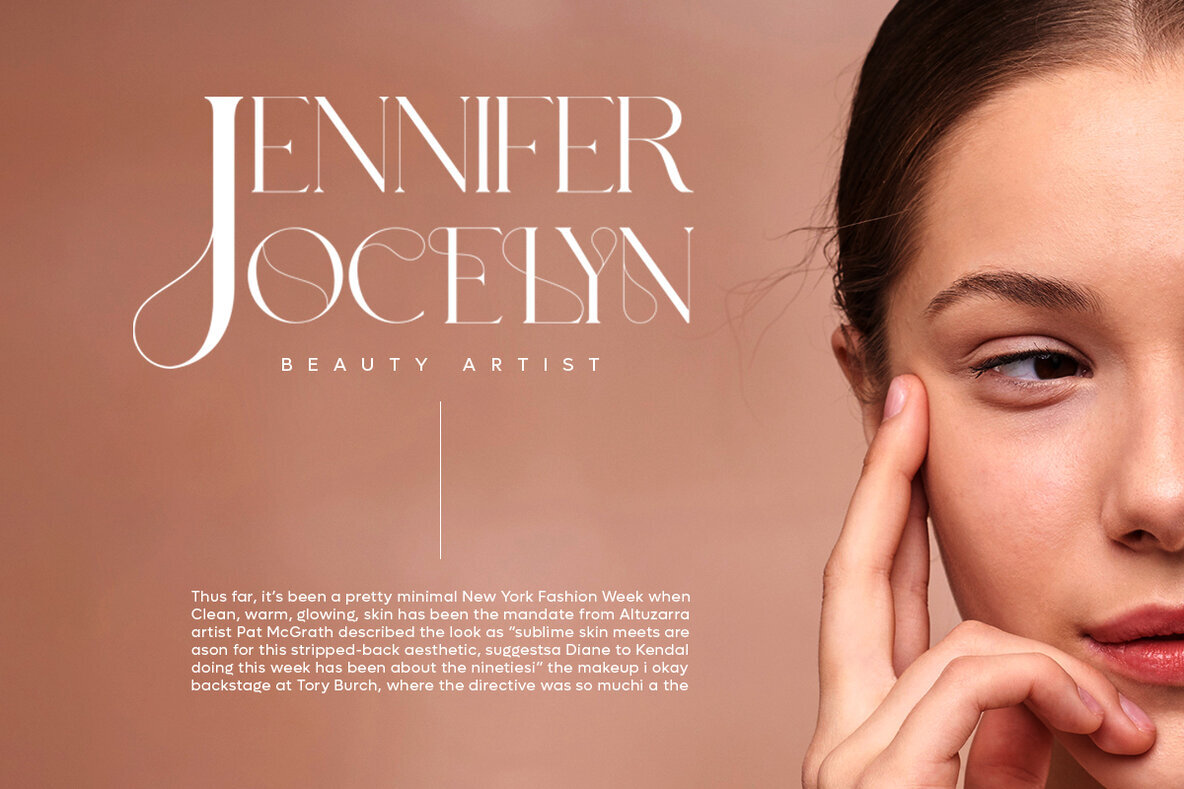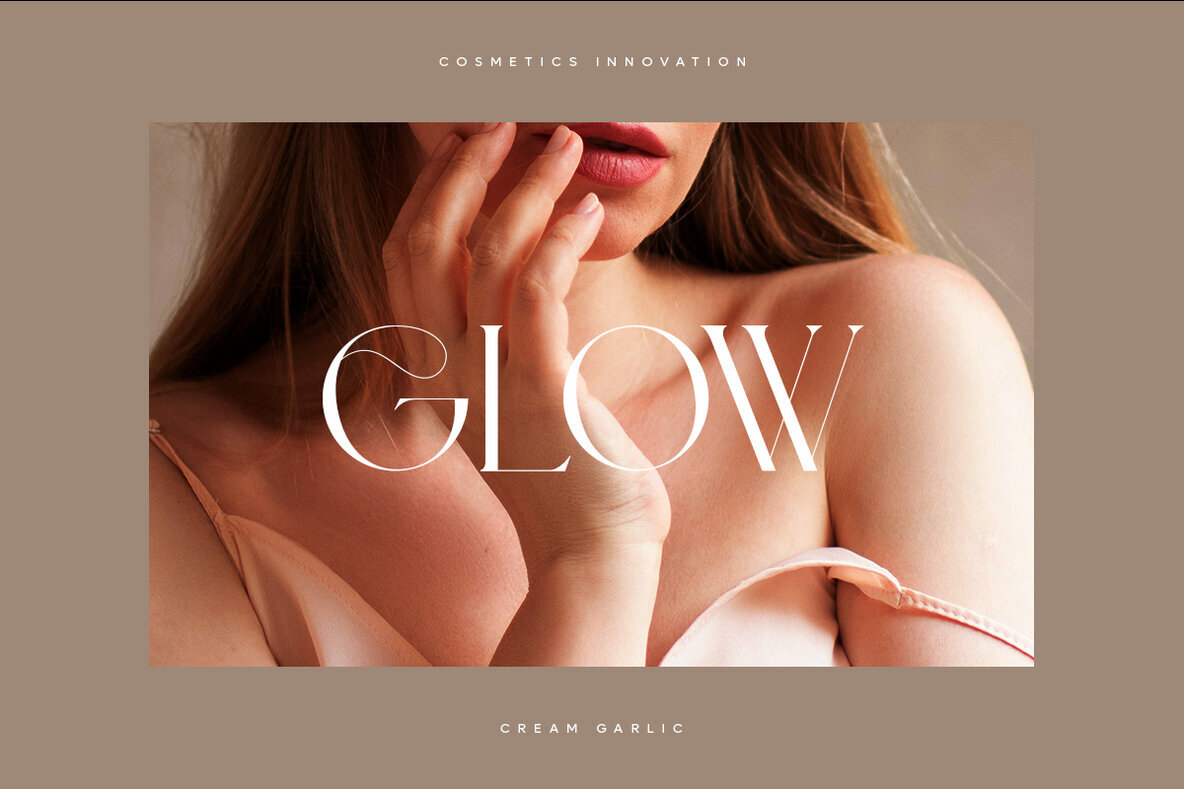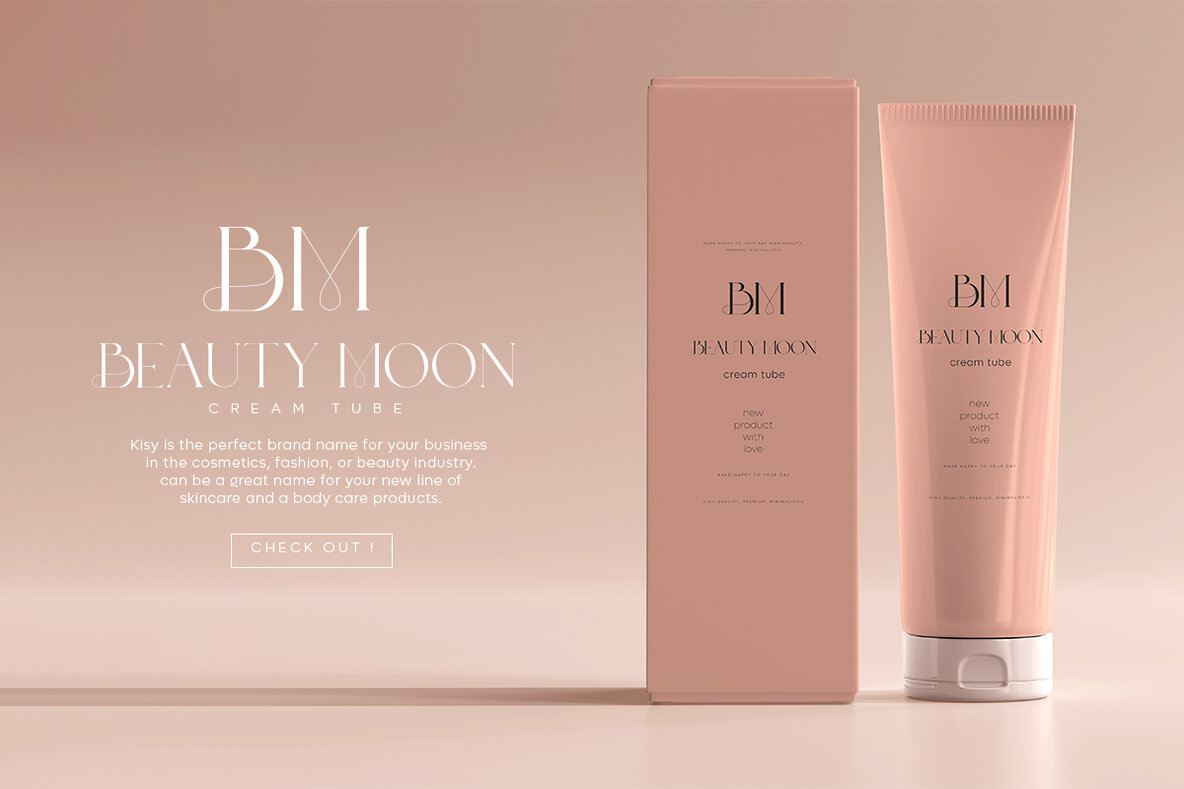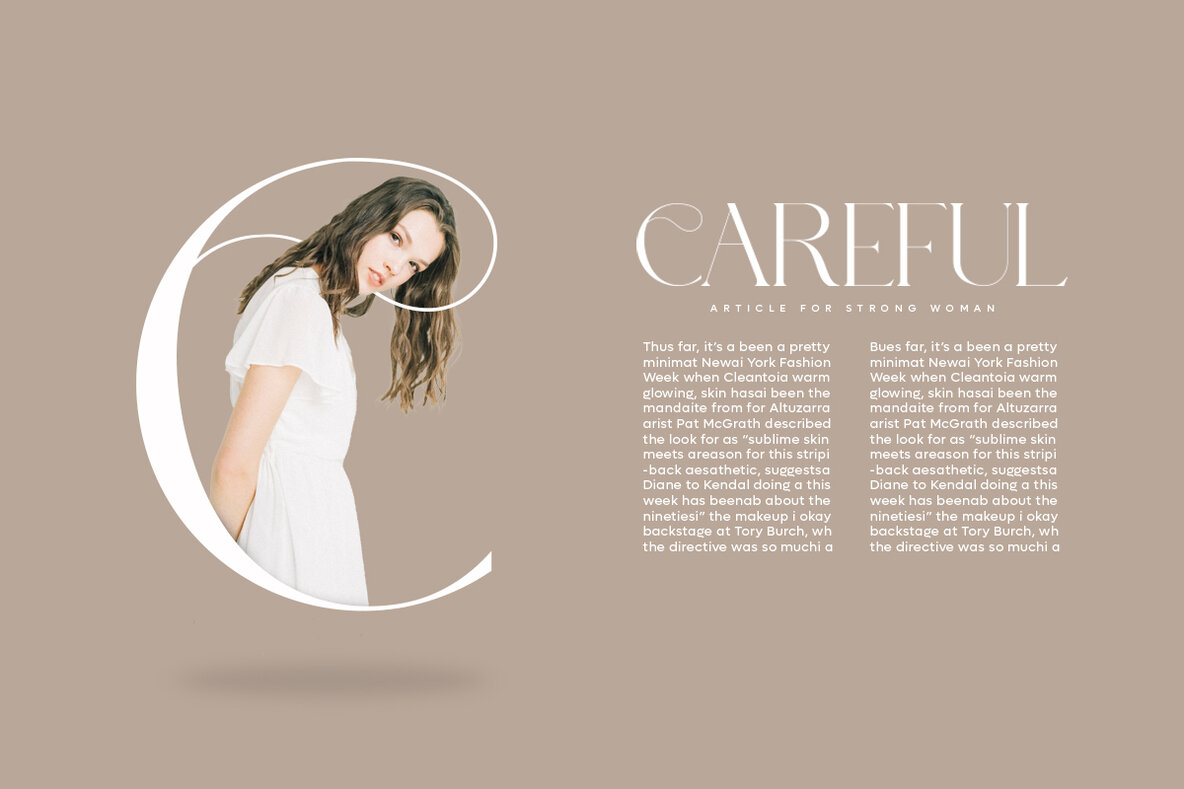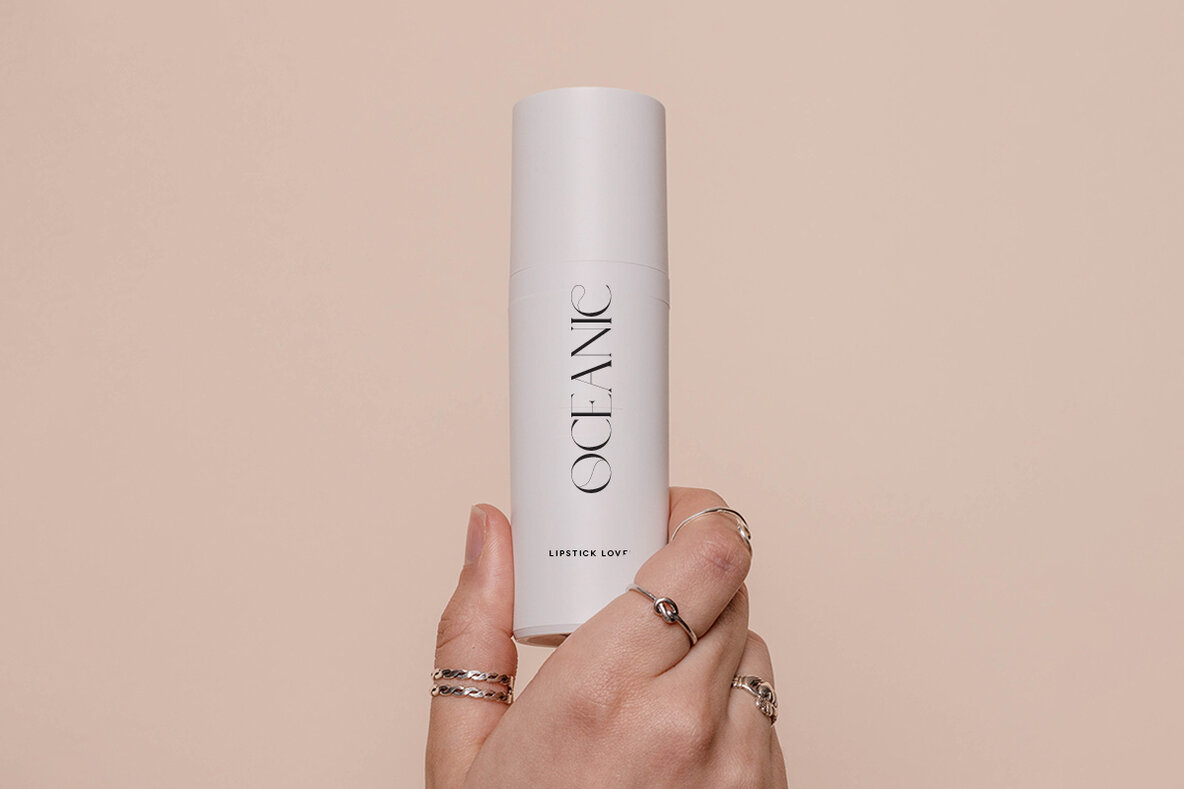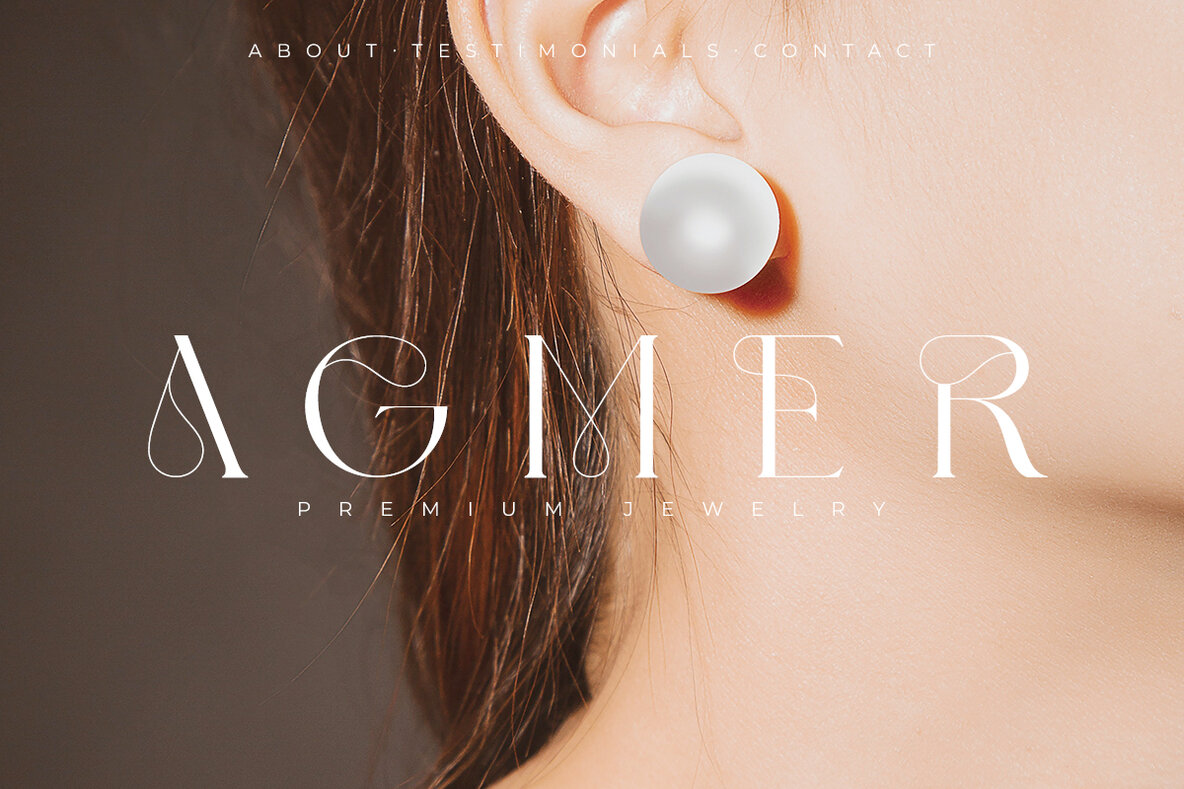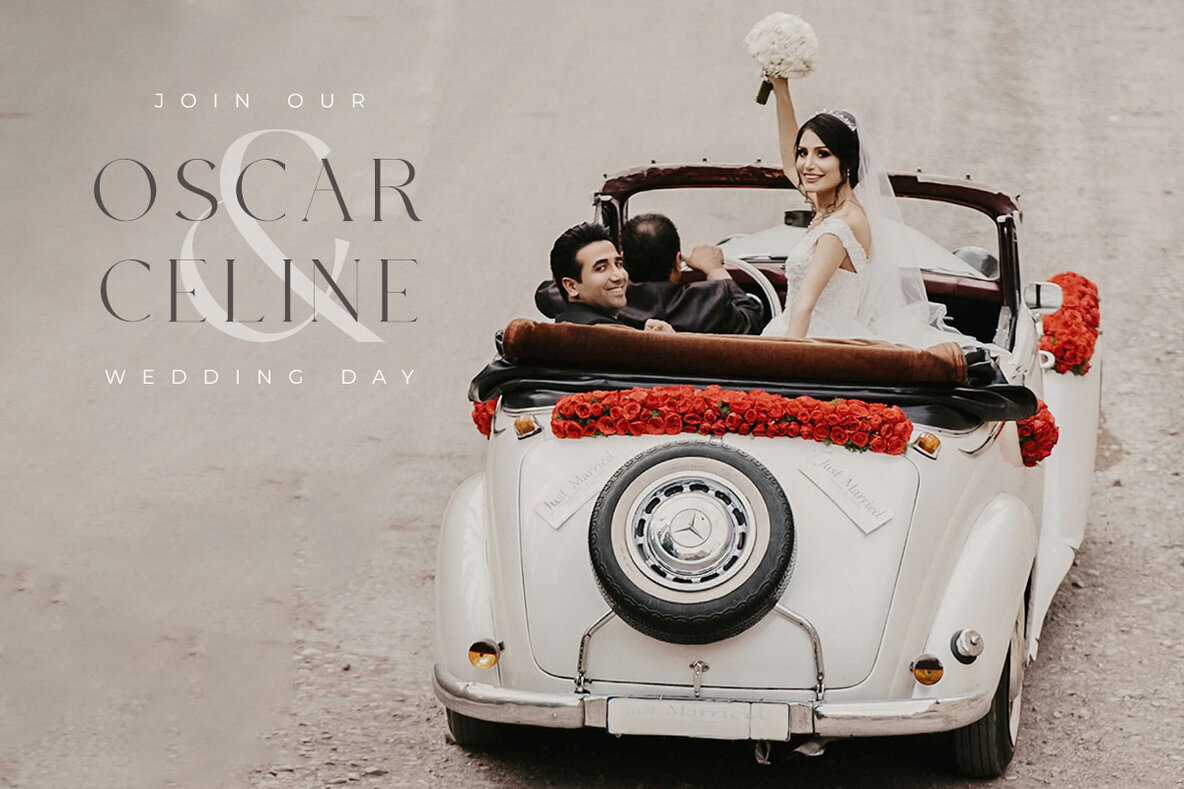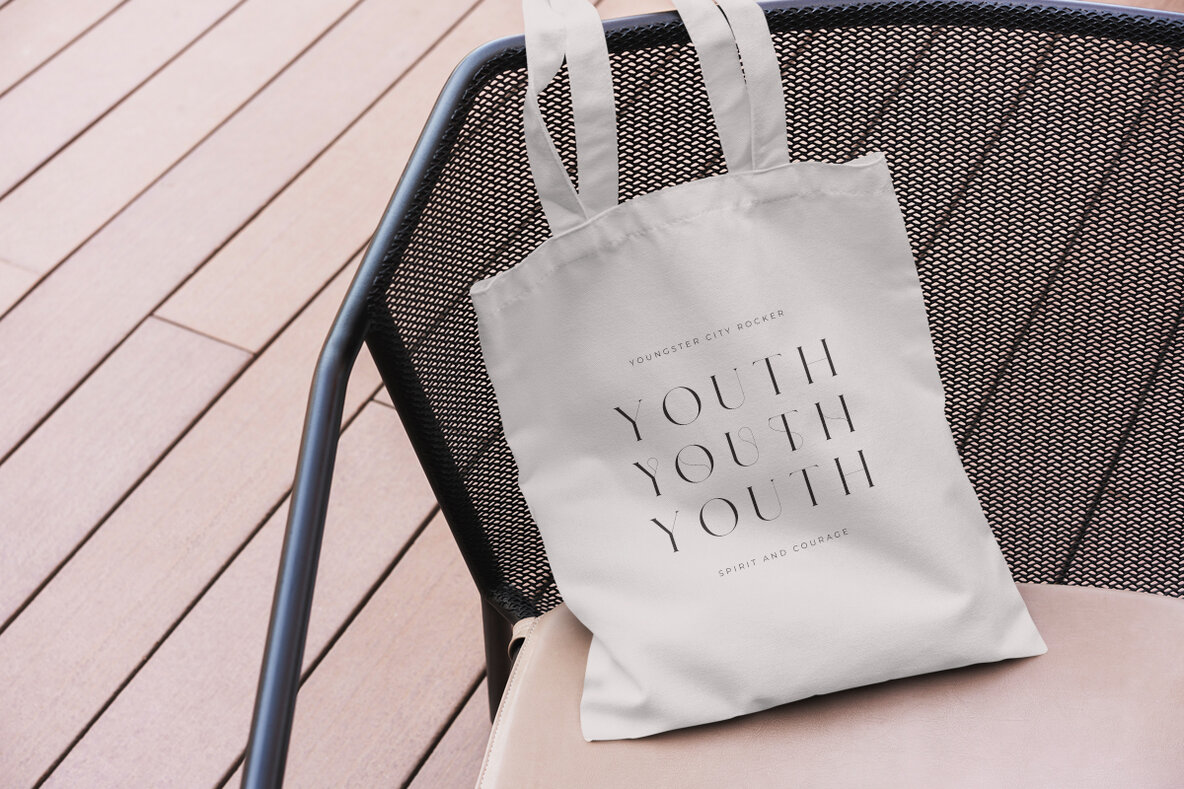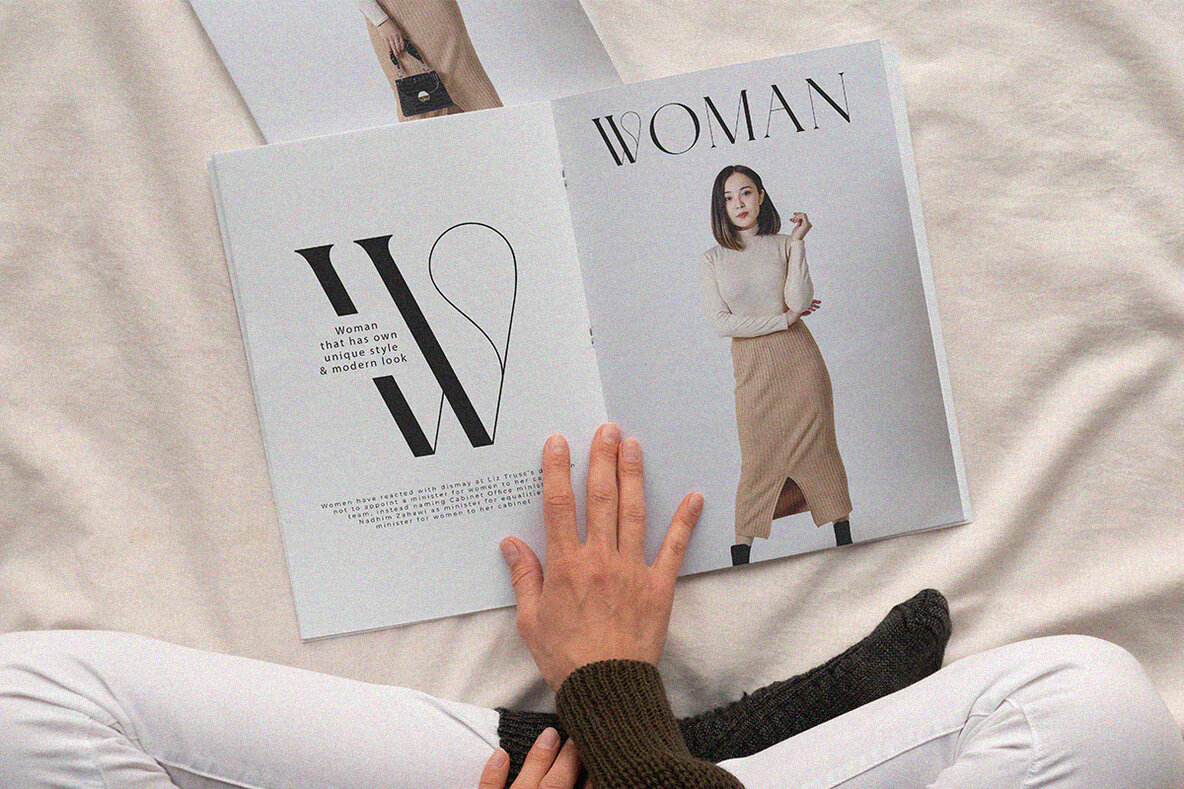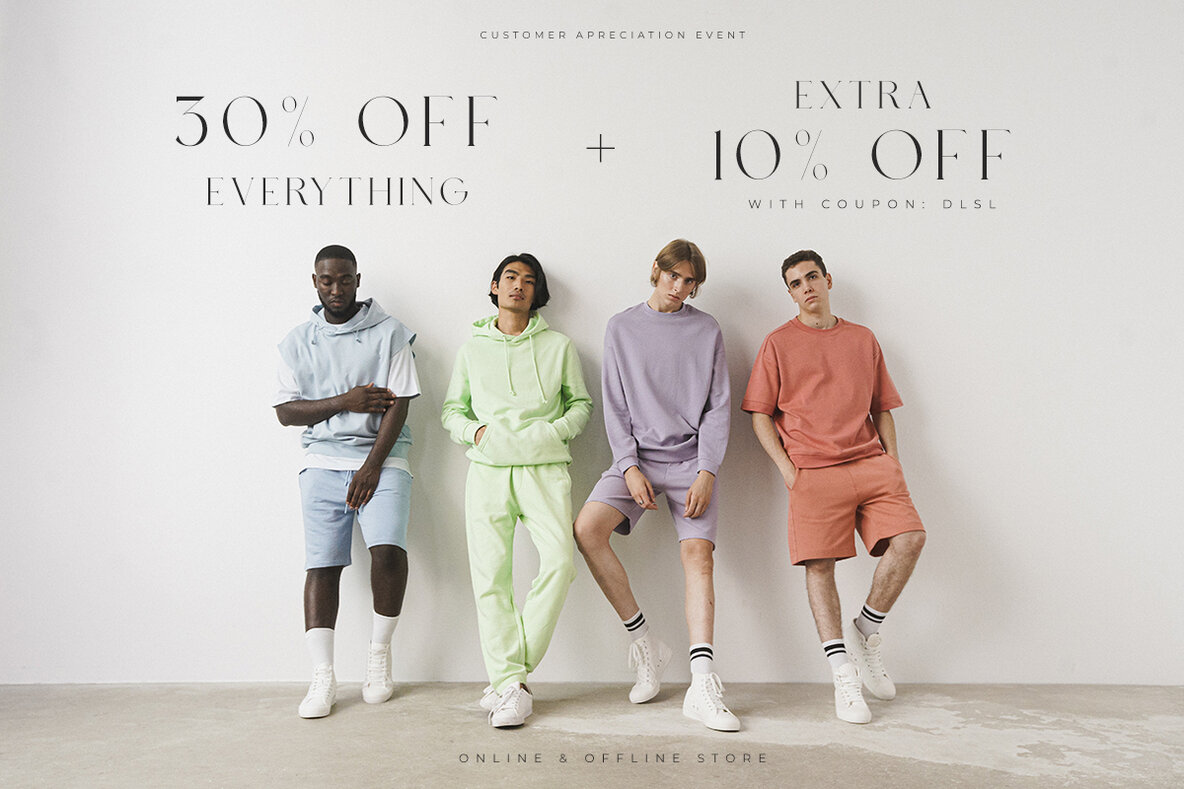
Cream Garlic 1
Cream Garlic is a Classy serif typeface Unique alternate , multilingual support with perfect kerning. This typeface is perfect for an elegant & luxury logo , classy editorial design, women's magazine, fashion brand , cosmetic brand, fashion promotion , modern advertising design, invitation card, art quote, home decoration , book/cover titles, special events, and much more.
Cream Garlic Features:
• Uppercase
• Alternates
• Numerals & Punctuation
• Accented characters
• Multilingual Support
• Unicode PUA Encoded